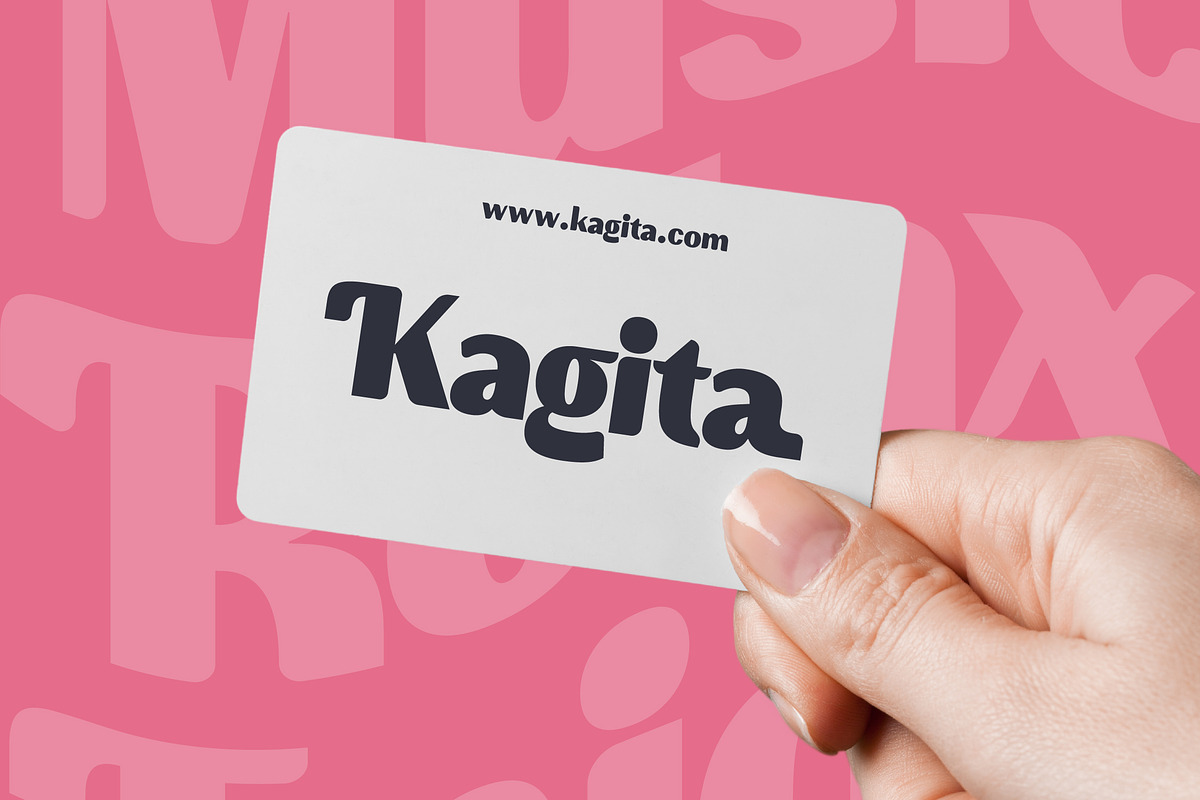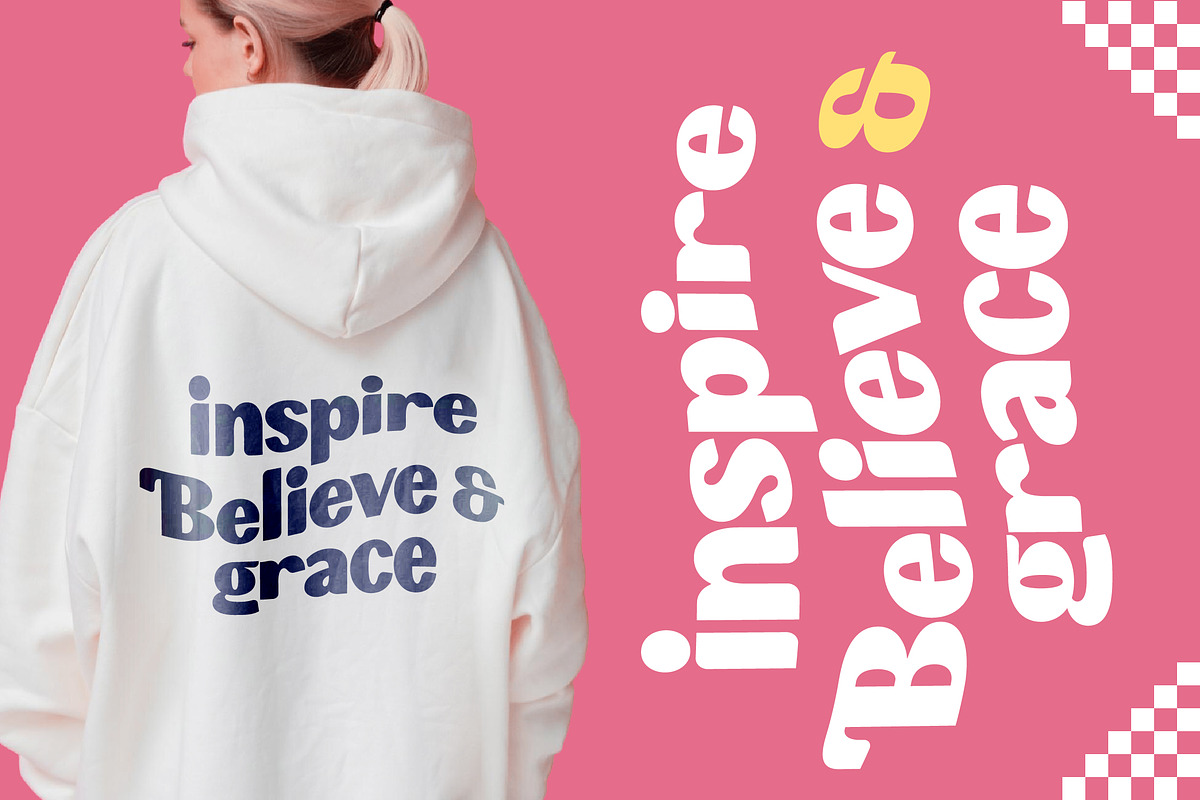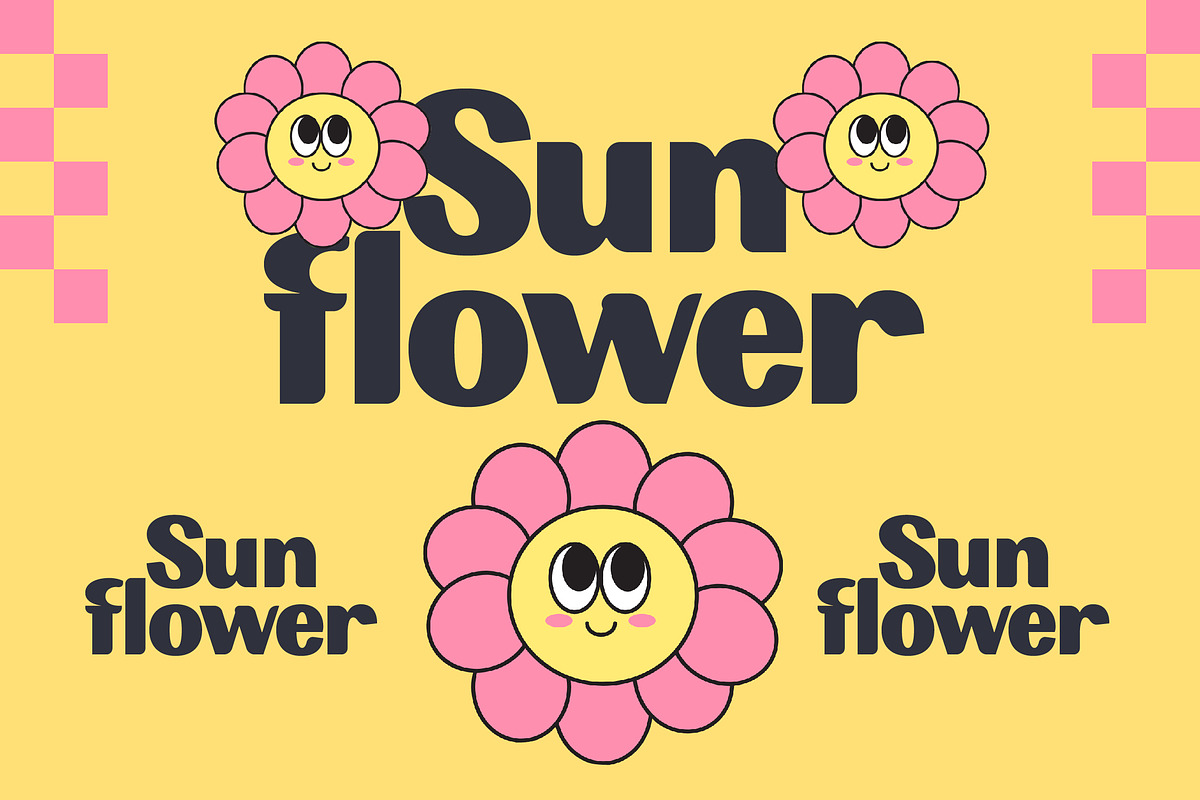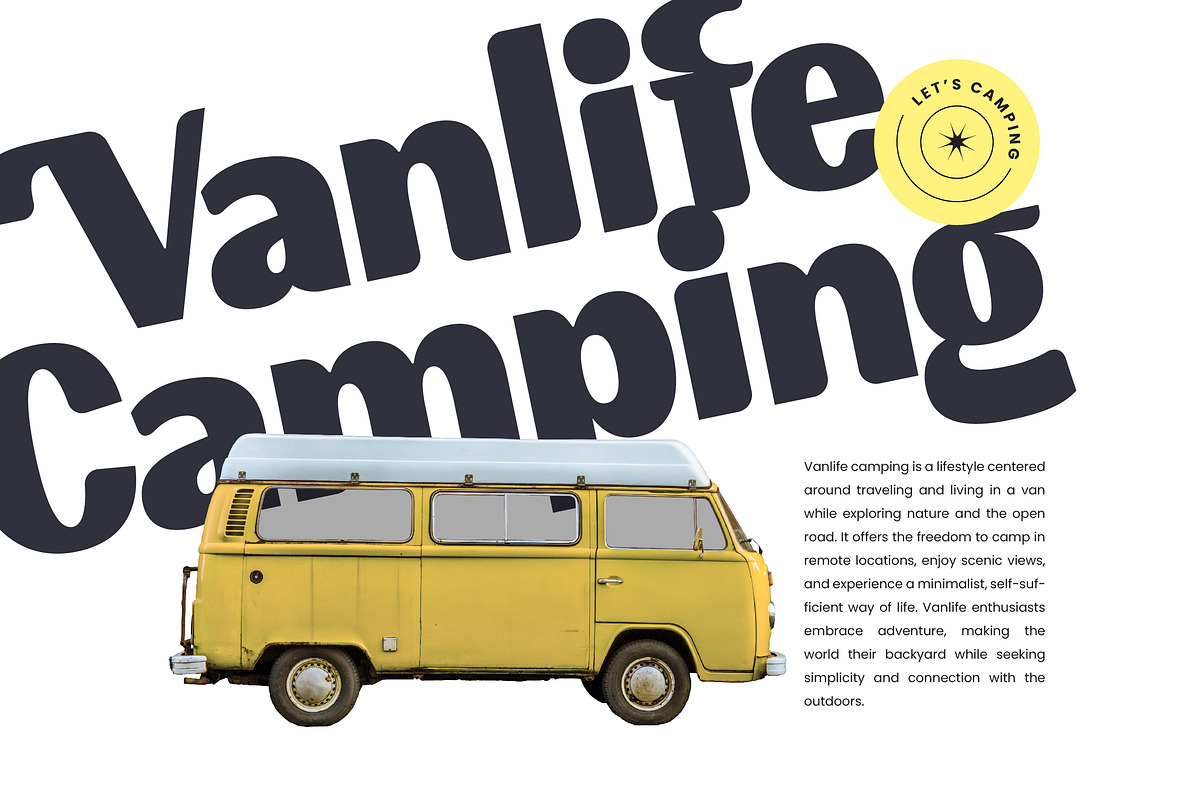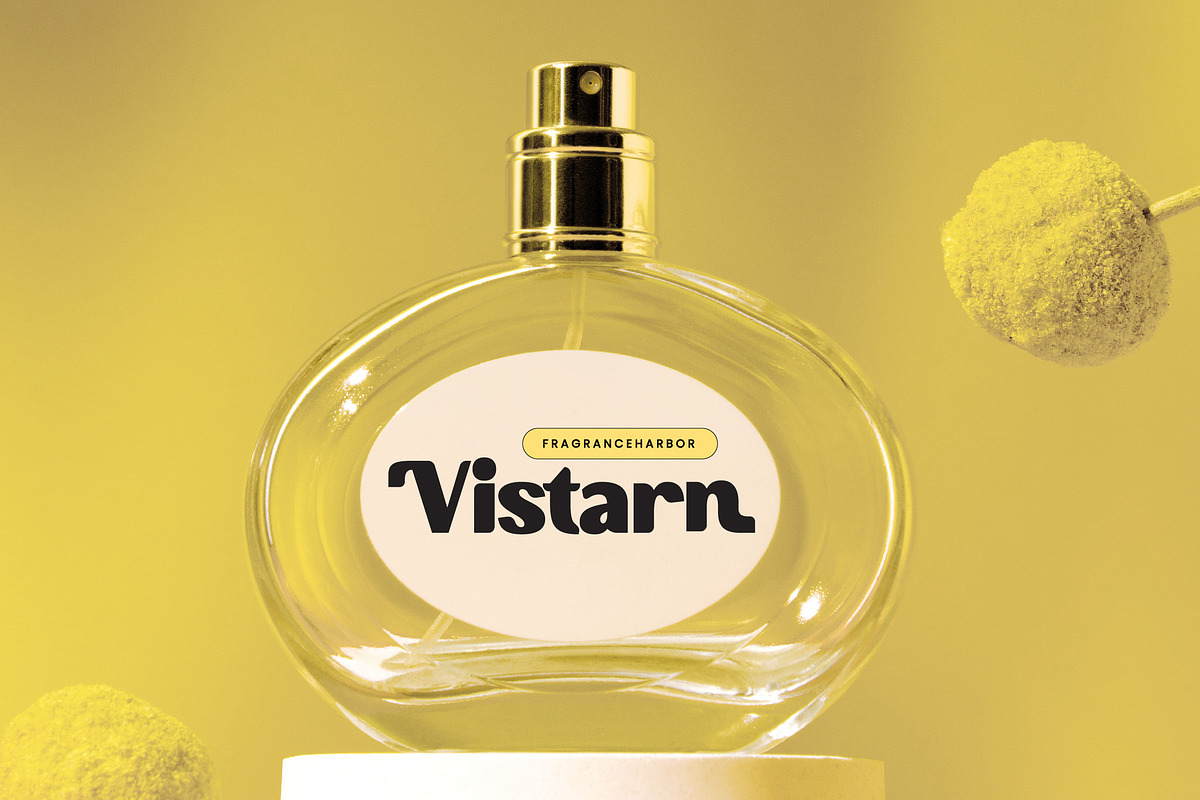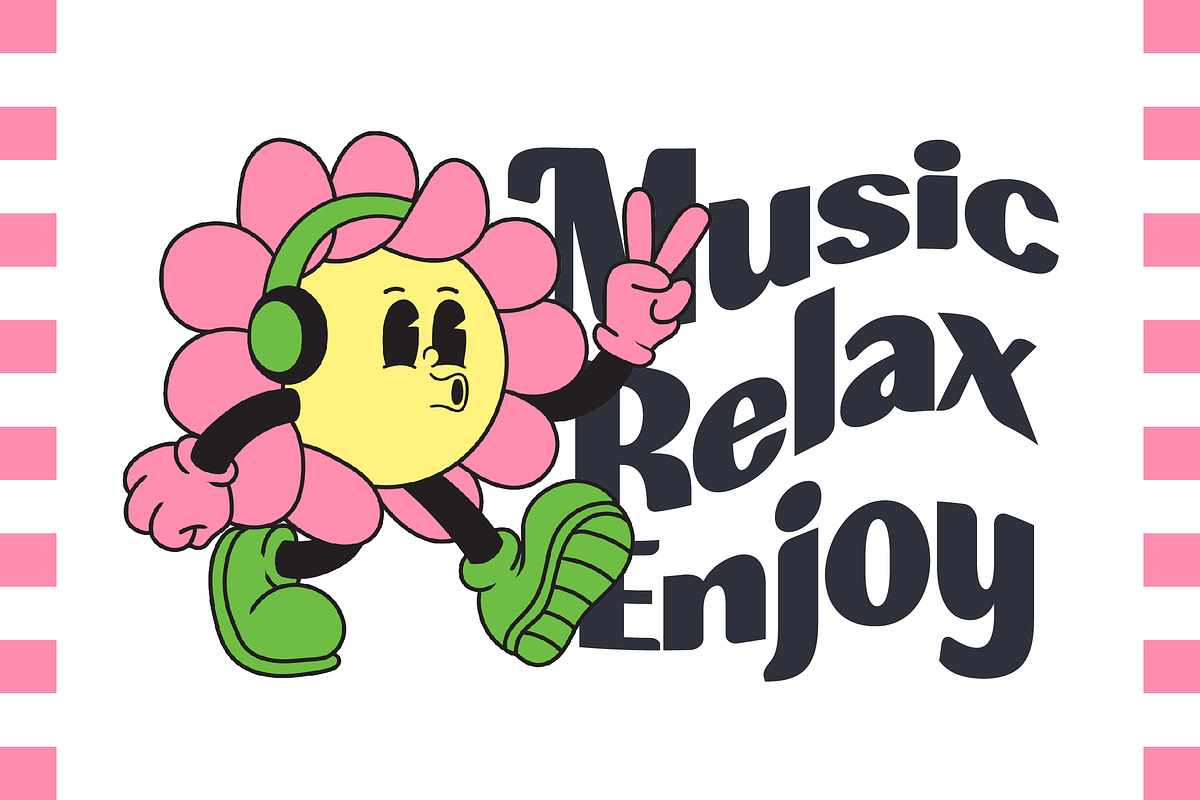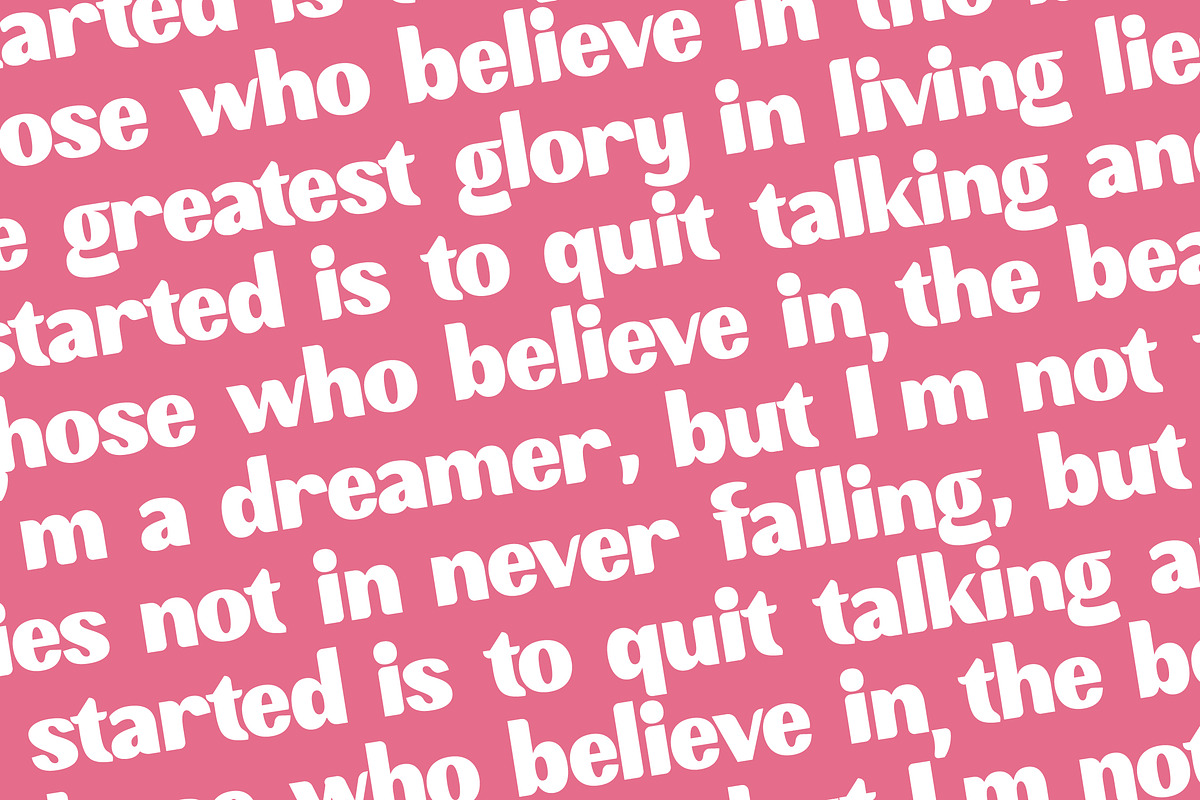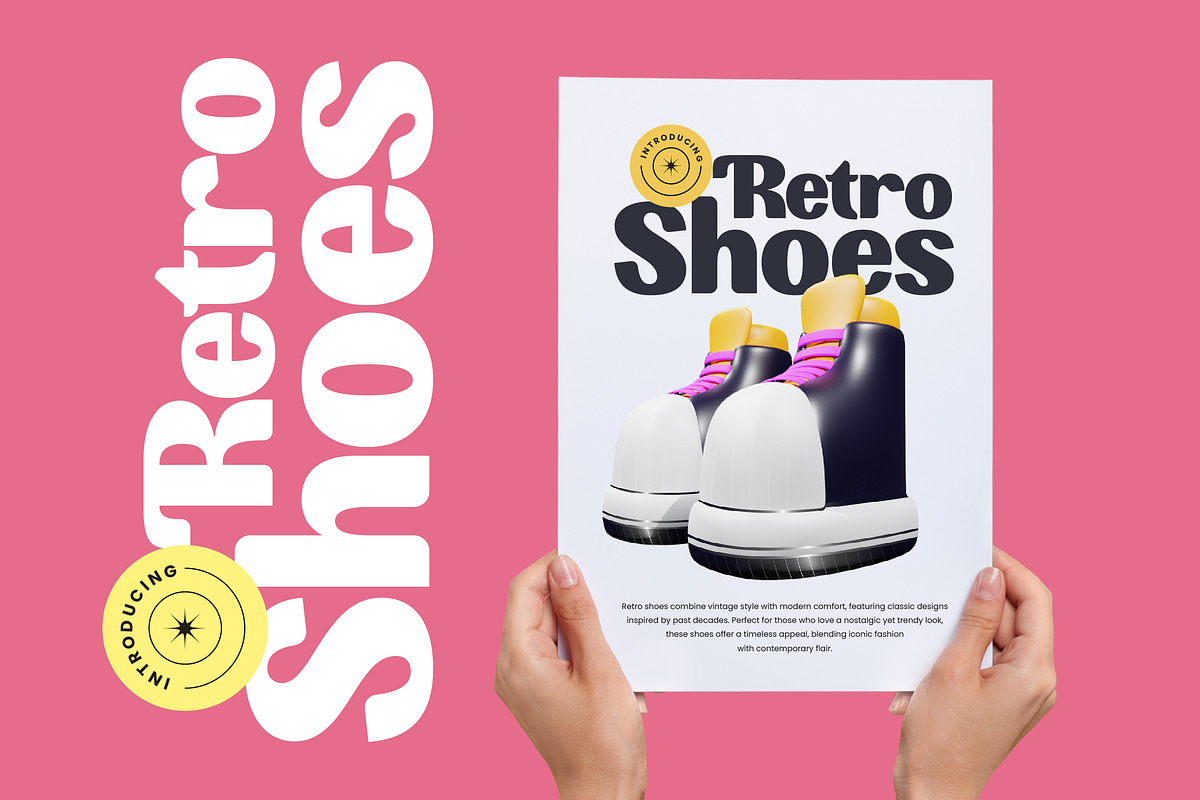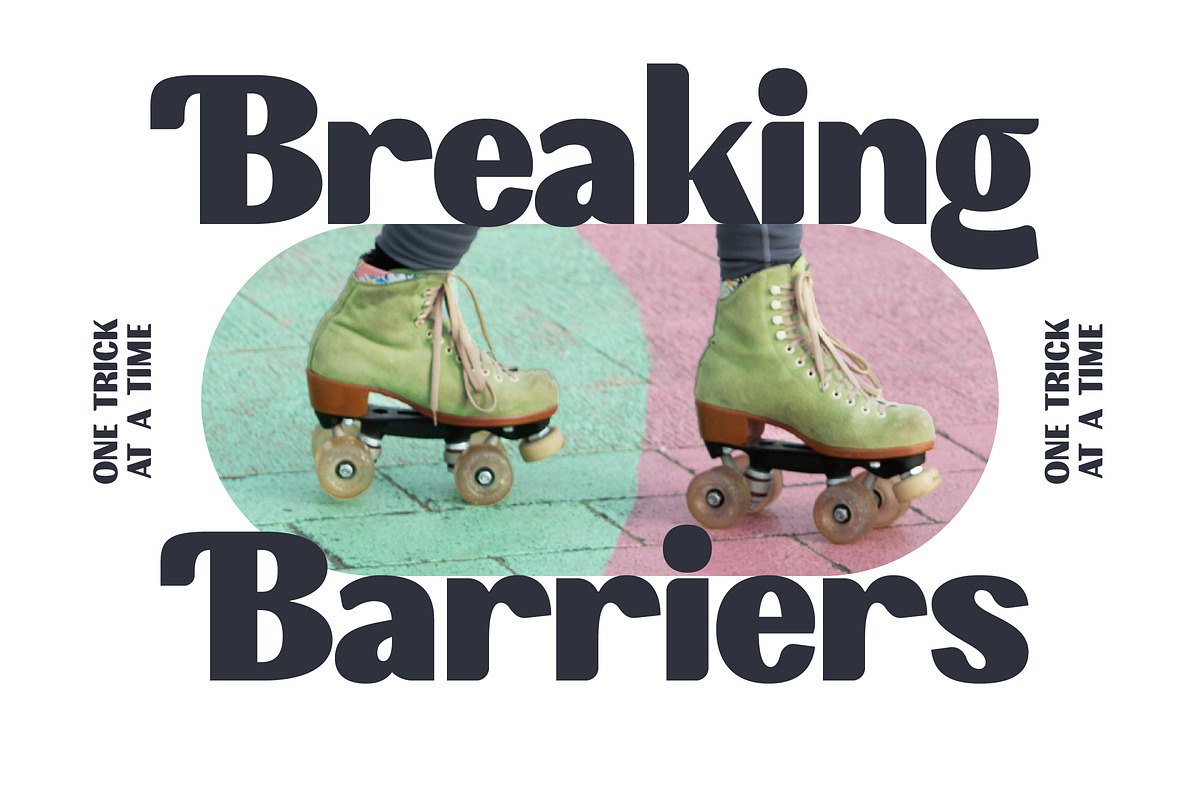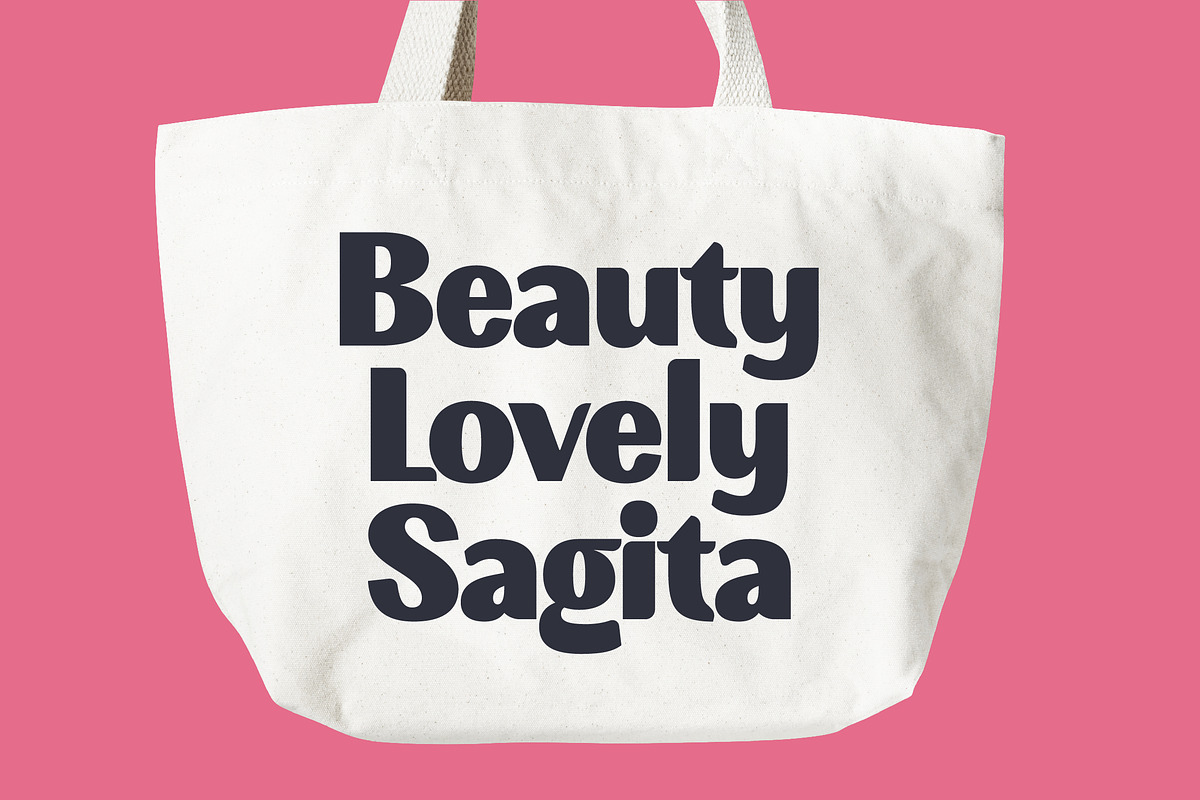
Ayngo Sofun Retro Display Font
Inject some joy and retro charm into your next creative project with Ayngo Sofun, a typeface that radiates pure happiness and nostalgic energy. This bold display font is designed to make an instant impression, turning every headline into a celebration of playful design.
Drawing inspiration from the groovy aesthetics of the 1970s and the whimsical world of vintage cartoons, this font captures a unique sense of wonder. Its soft, pillowy forms and cheerful characters evoke a sense of childhood nostalgia while maintaining a contemporary, professional edge for modern creators.
The personality of this typeface is all about bold confidence and friendly accessibility, making it a perfect choice for modern serif display needs with a twist. It offers a distinctive branding impact through its chunky proportions and smooth curves, serving as a high-energy editorial font that refuses to be ignored by your audience.
As the modern serif trend evolves toward more expressive and bubbly forms, this typeface perfectly aligns with the current demand for character-driven typography. It taps into the popular Y2K meets 70s aesthetic, providing editorial display fonts that feel both fresh and timeless in a competitive digital landscape.
This versatile typeface is an ideal candidate for eye-catching logo design and vibrant branding projects that require a touch of whimsy. It excels in high-visibility areas like product packaging, social media fashion campaigns, and creative editorial layouts where a fun, inviting atmosphere is essential for success.
Beyond its striking base forms, the package includes 37 unique alternates to give you ultimate creative control over your typography. The font is fully equipped with multilingual support and a comprehensive set of international characters, ensuring your message resonates across global markets with ease.